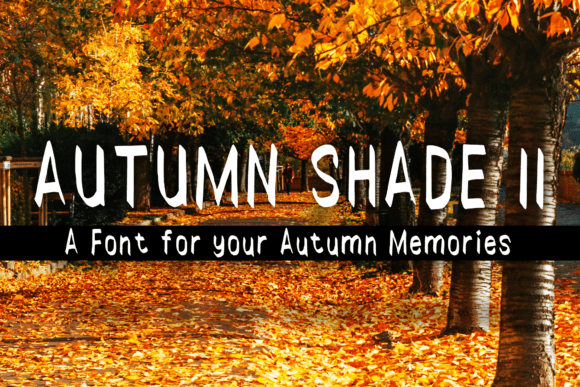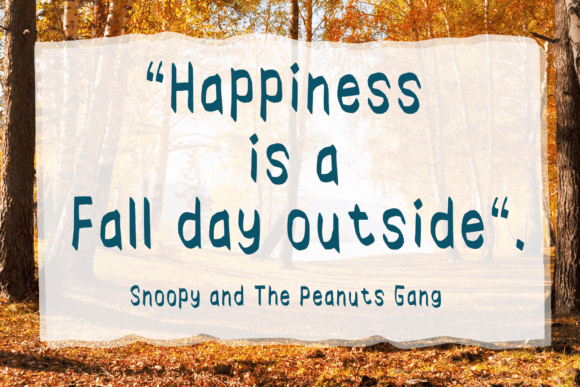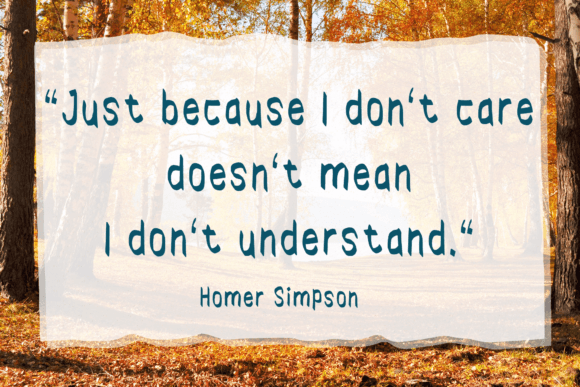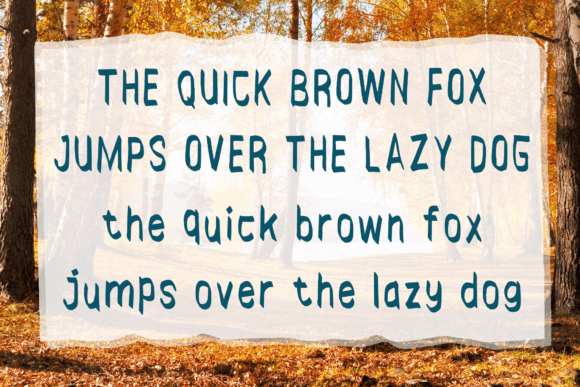
Autumn Shade Ii Font
About Autumn Shade Ii Font
Autumn Shade II is a fun handwritten font. The handwriting feel you get from this font is fun to display, you can use it on anything from cartoon-related designs, to kids’ projects, greeting cards, or anything that needs a casual touch. Fall in love with its incredibly versatile style and use it to create lovely designs!